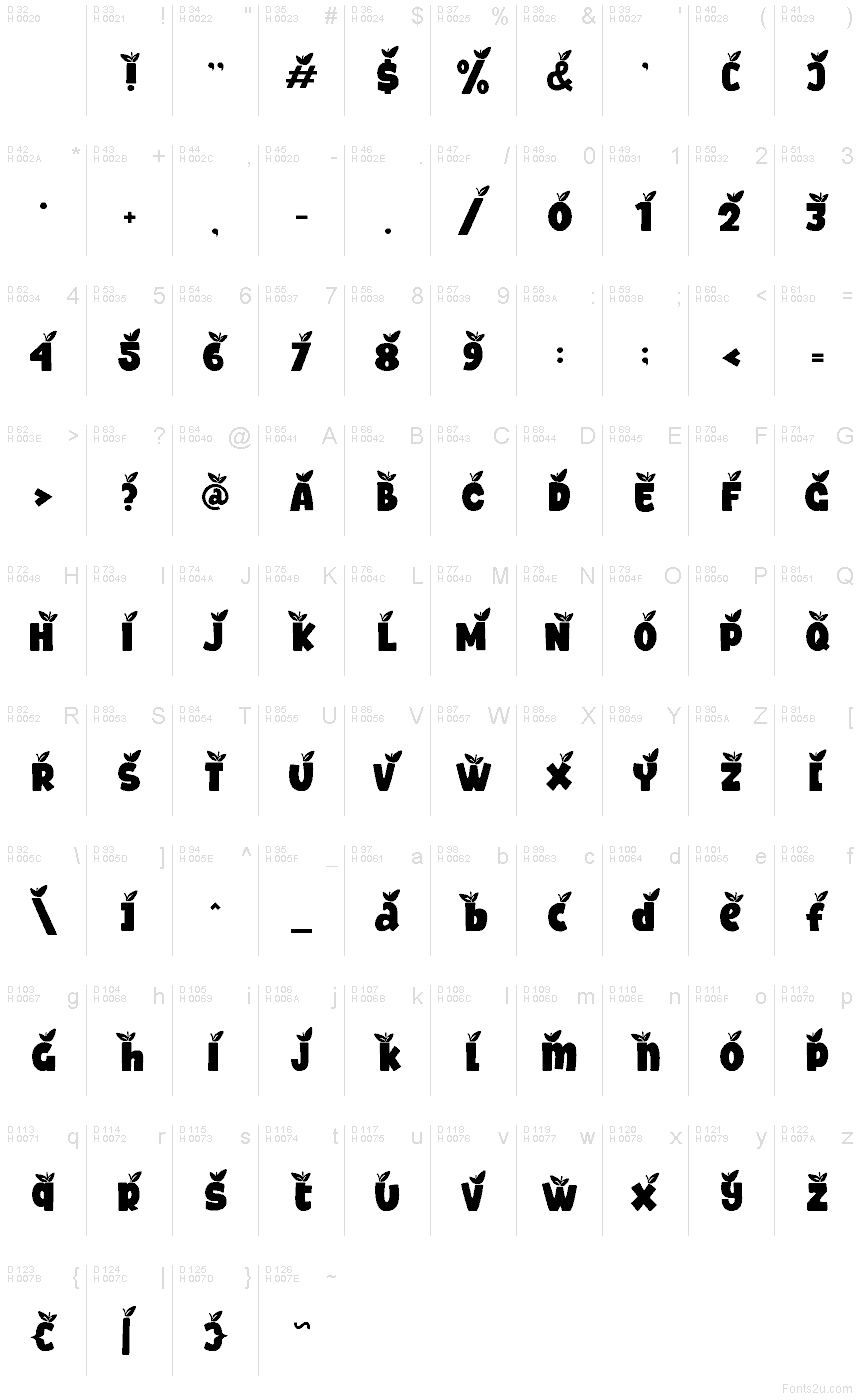
Study Symbol Apple font is a decorative bold display font by PutraCetol Studio, combining quirky shapes and dark lines for stunning visuals. The font contains rounded letters with large counters and subtle decorative elements around it to enrich the overall appearance. The typeface is quite youthful and draws attention with its playful design.
The free display font can be used in apparel designs, brand naming, packaging, books and magazines, labels and tags. It’ll look amazing also on modern websites or social media advertisements such as Instagram posts and YouTube covers or thumbnails.